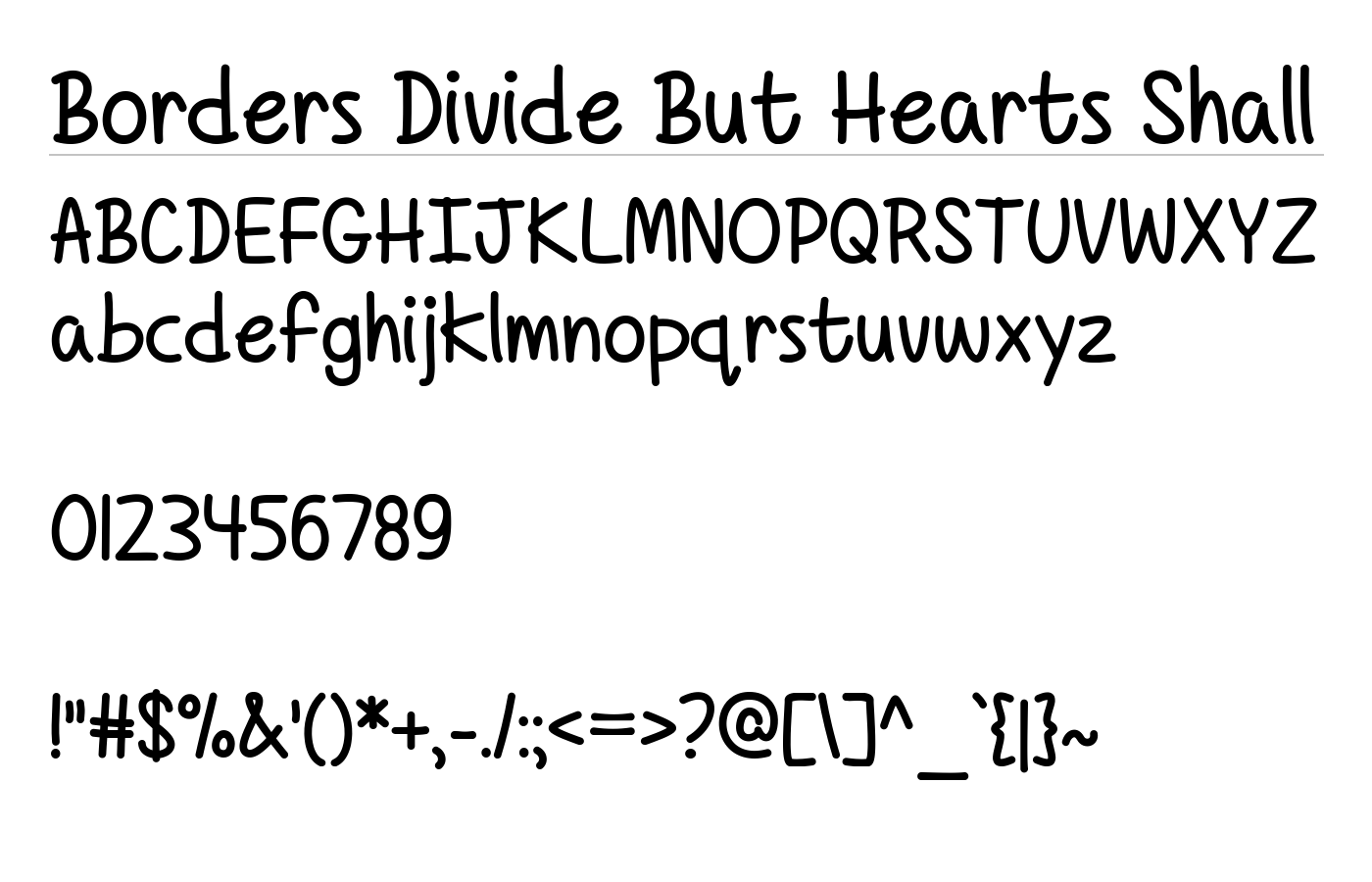
Borders Divide But Hearts Shall is a playful, casual handwritten sans serif font with a friendly and approachable vibe. Its rounded, slightly uneven letterforms and moderate x-height give it an informal, human touch, making it ideal for projects that seek warmth and personality. This font works well in children’s books, informal branding, and creative headlines where a lighthearted and personal feel is desired.
Borders Divide But Hearts Shall Font
About Borders Divide But Hearts Shall Font